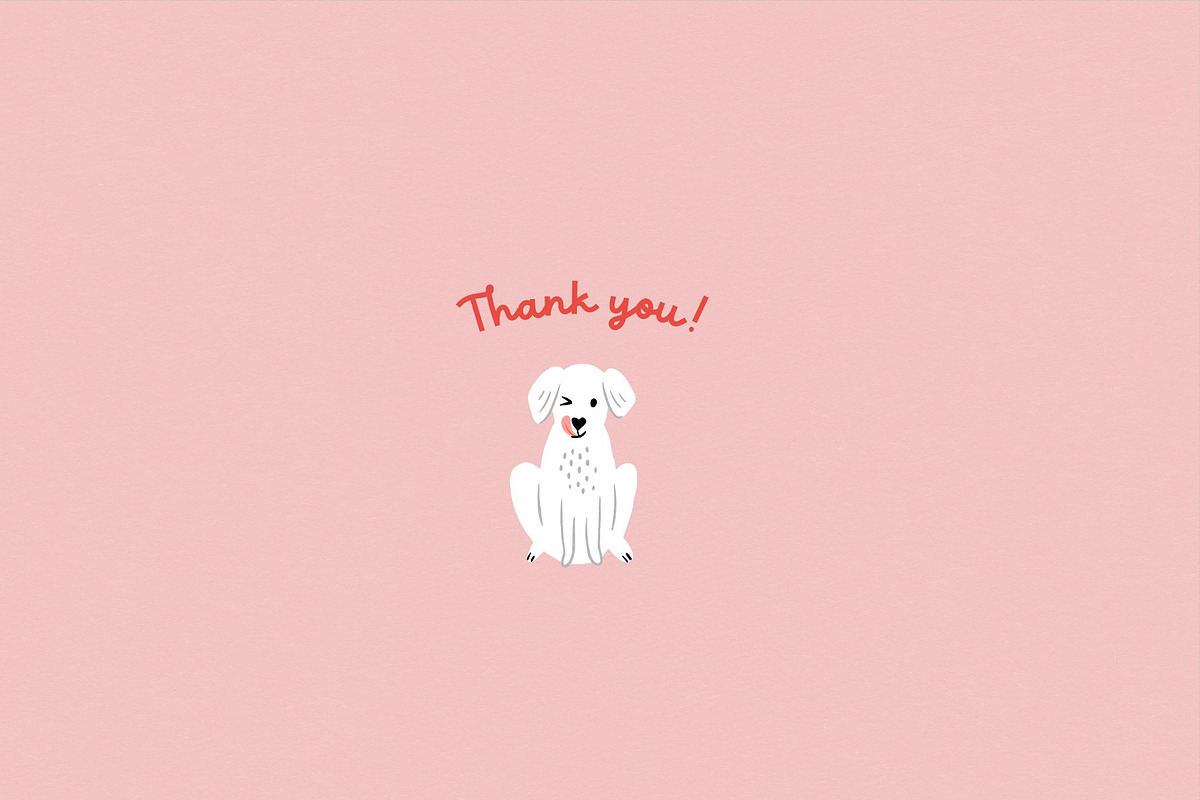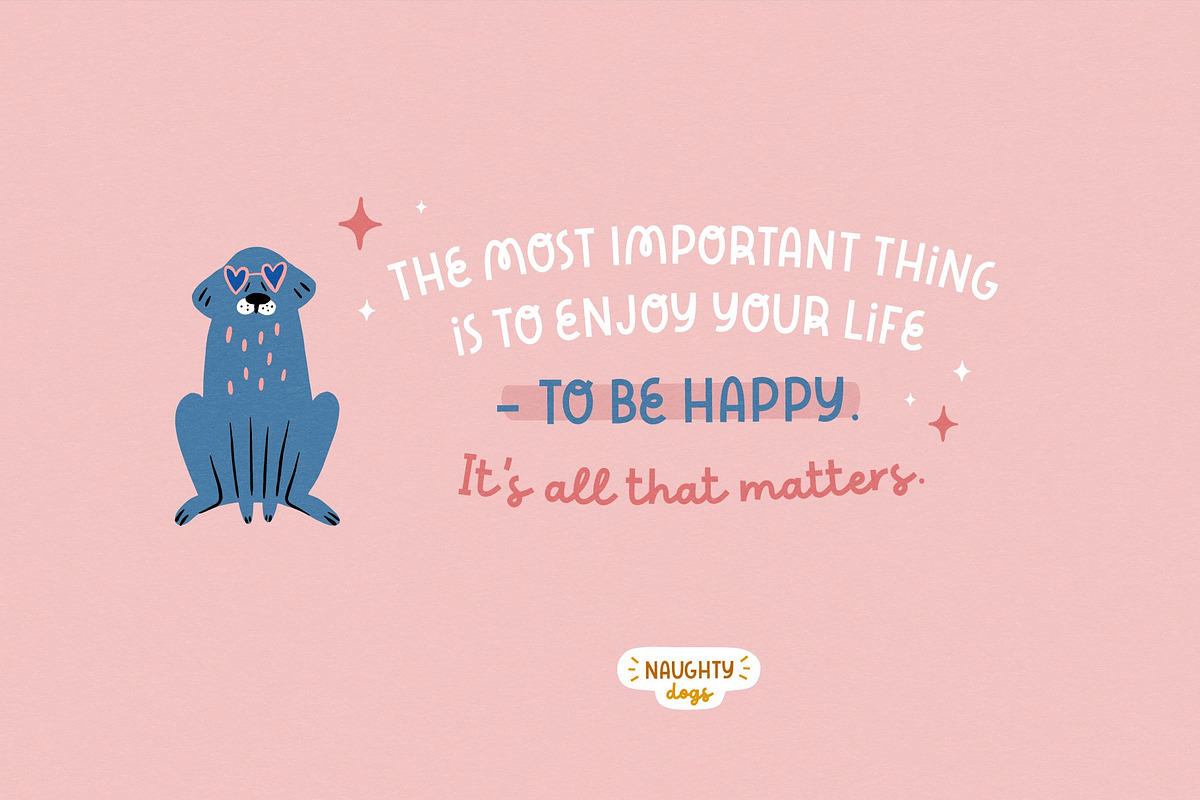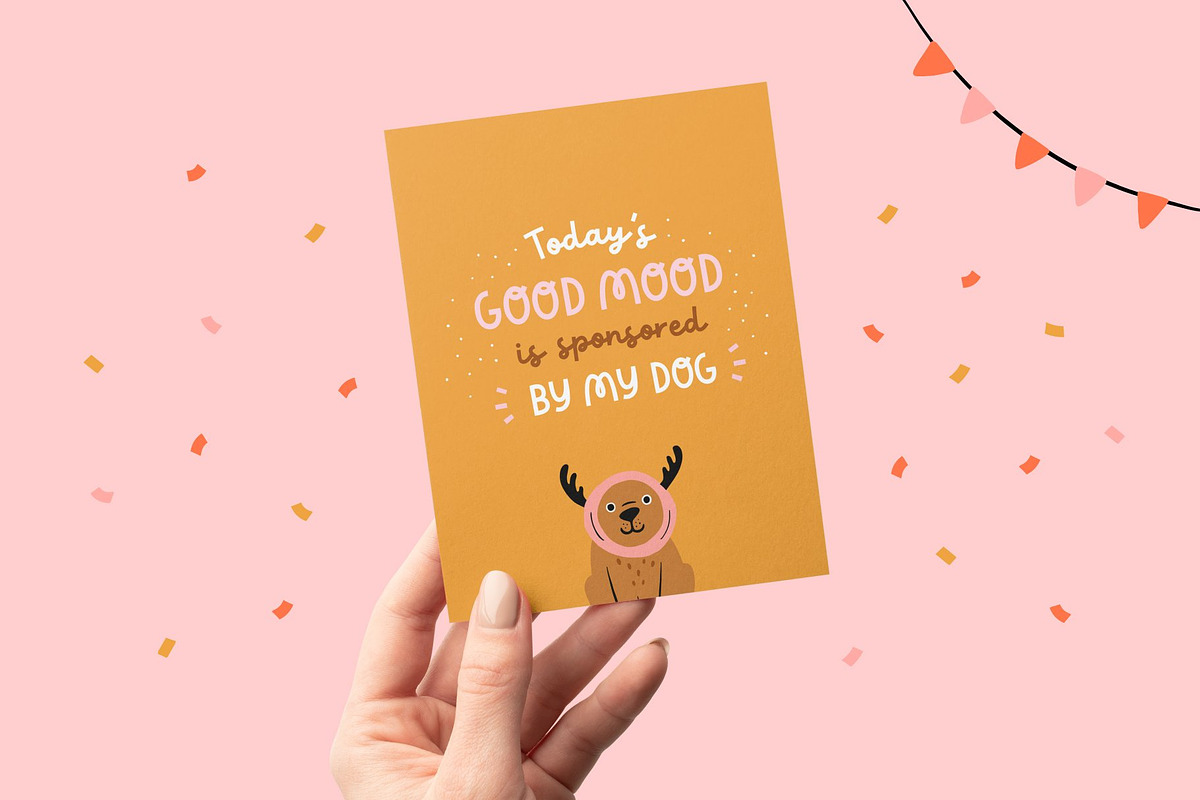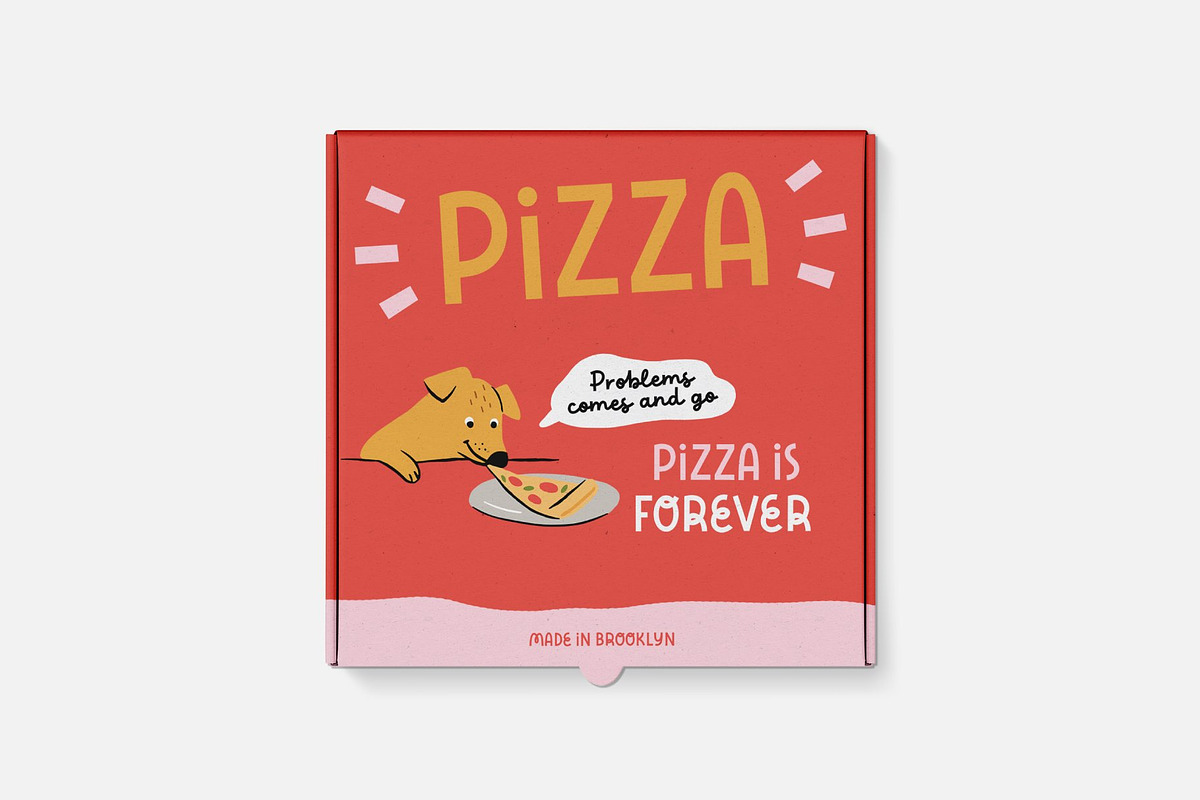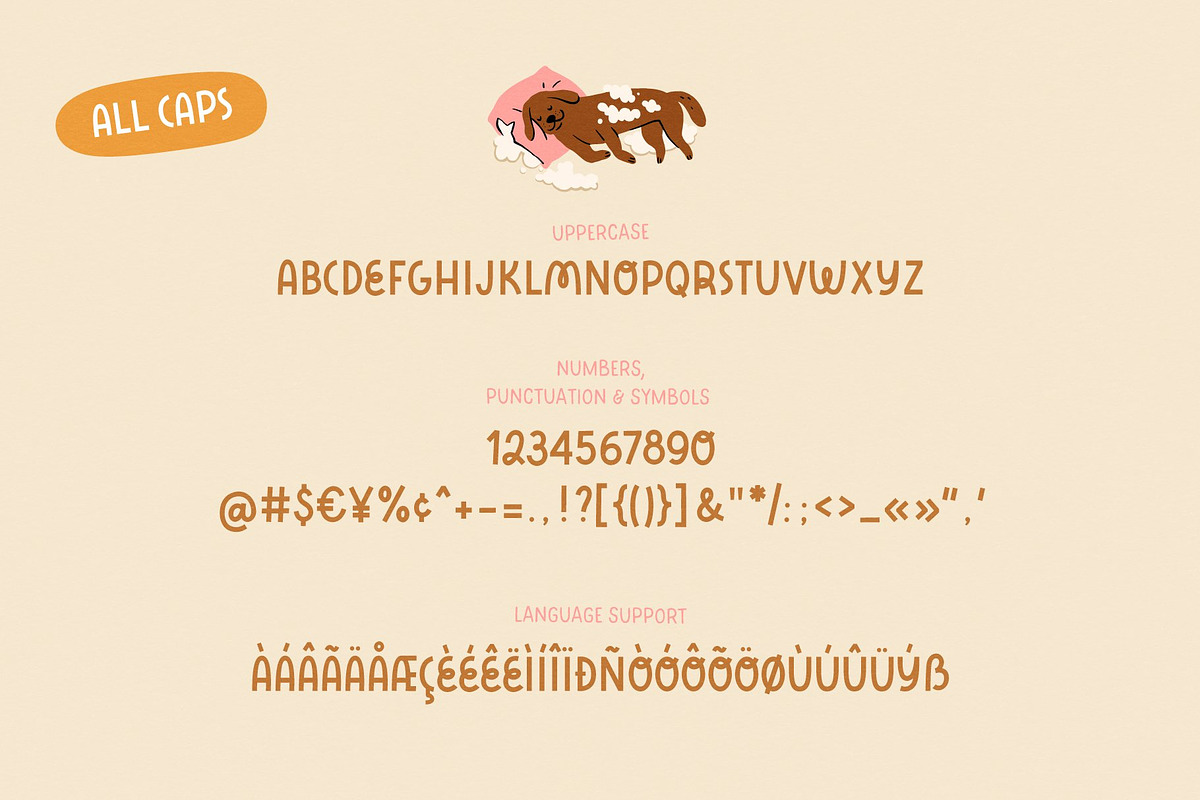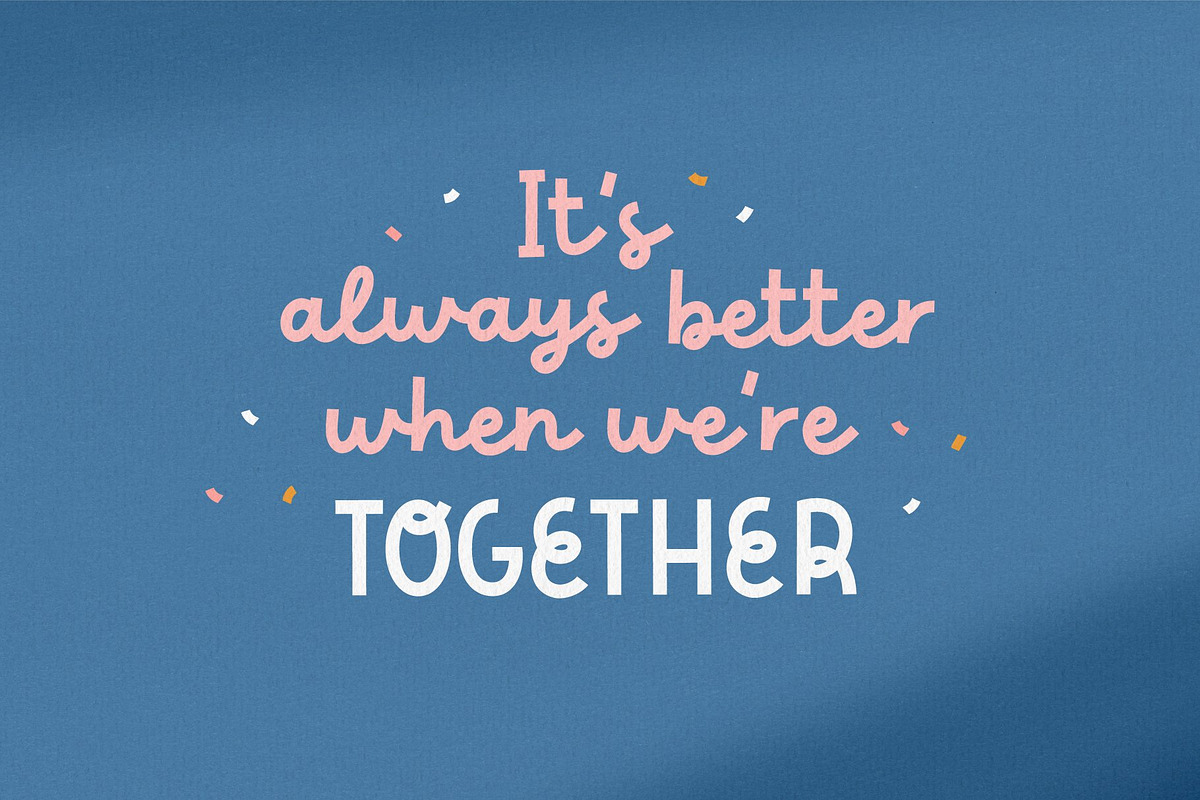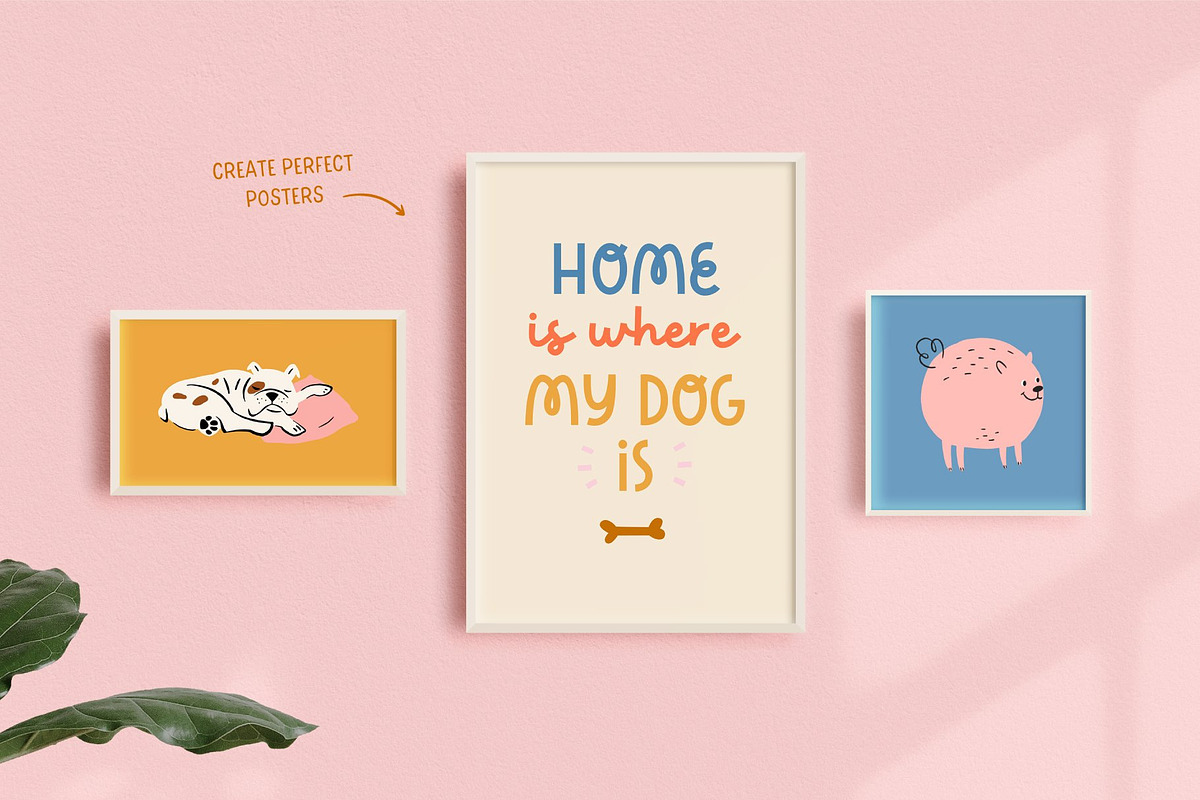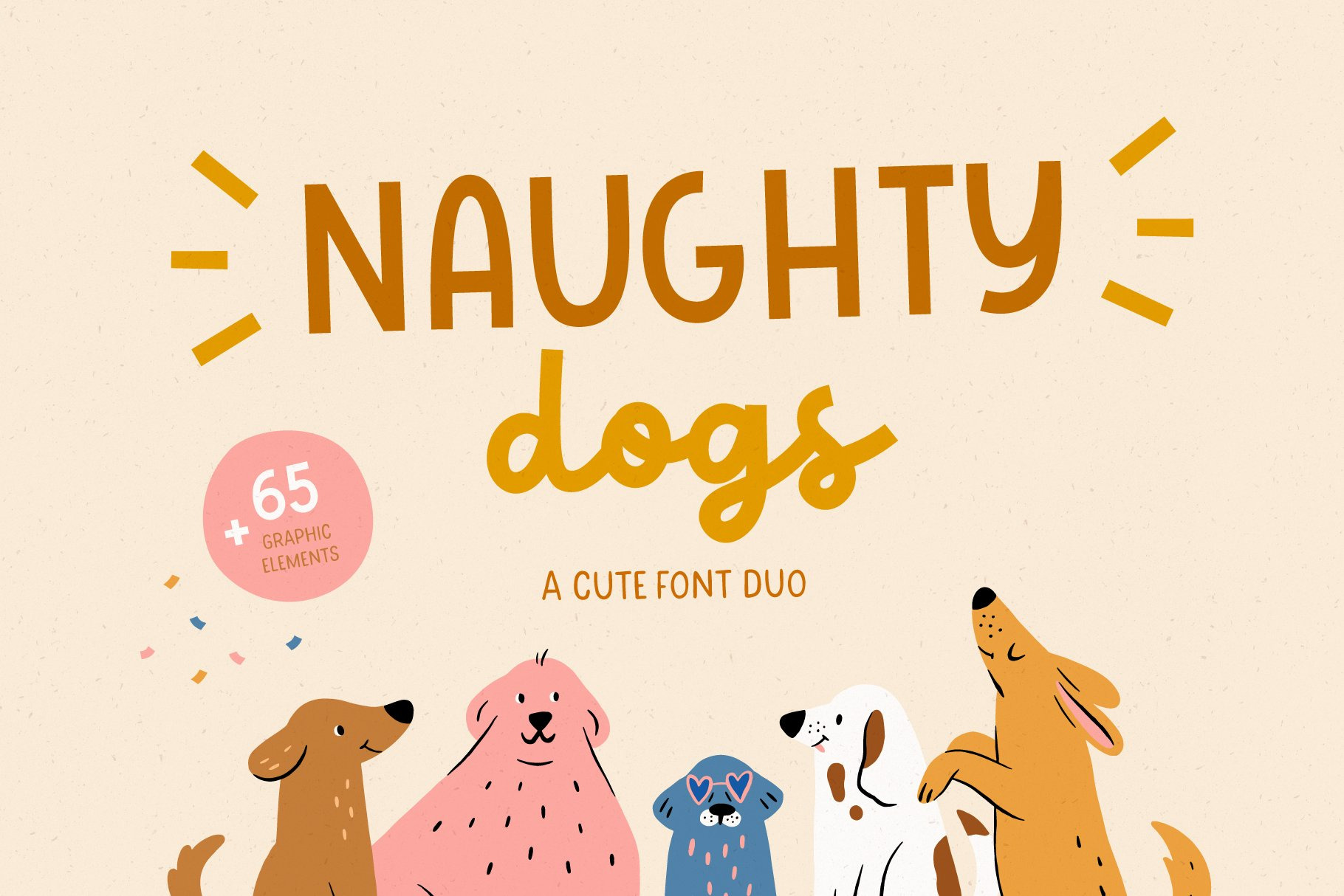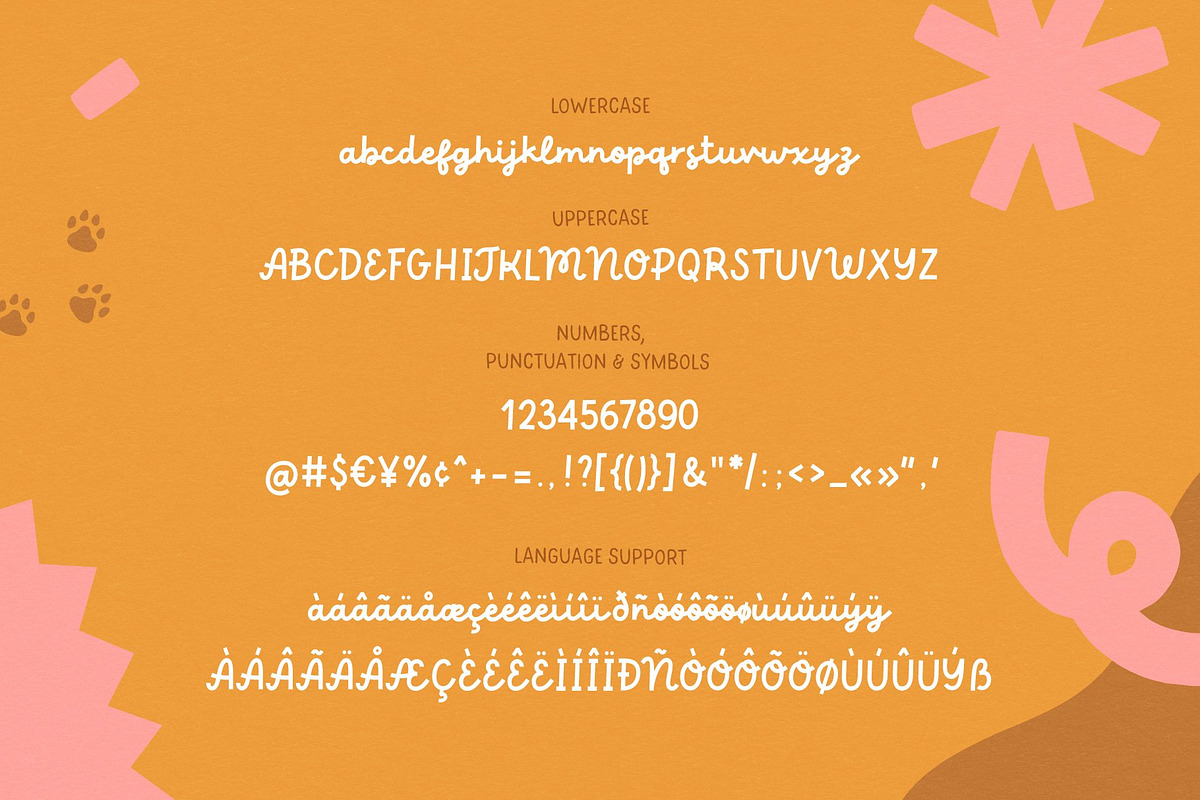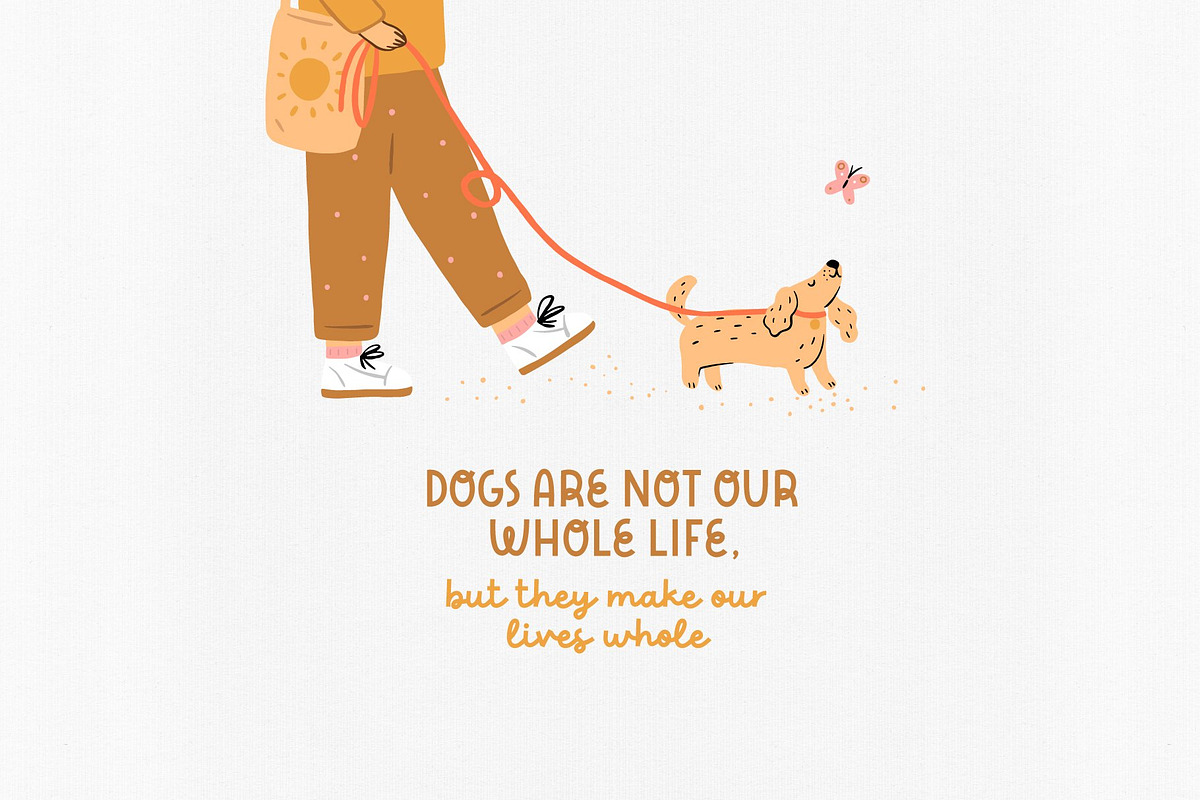
Naughty dogs | Font duo
Naughty dogs will be perfect for books, greeting cards, posters, clothing, picture books or anything that requires a fun and happiness look!